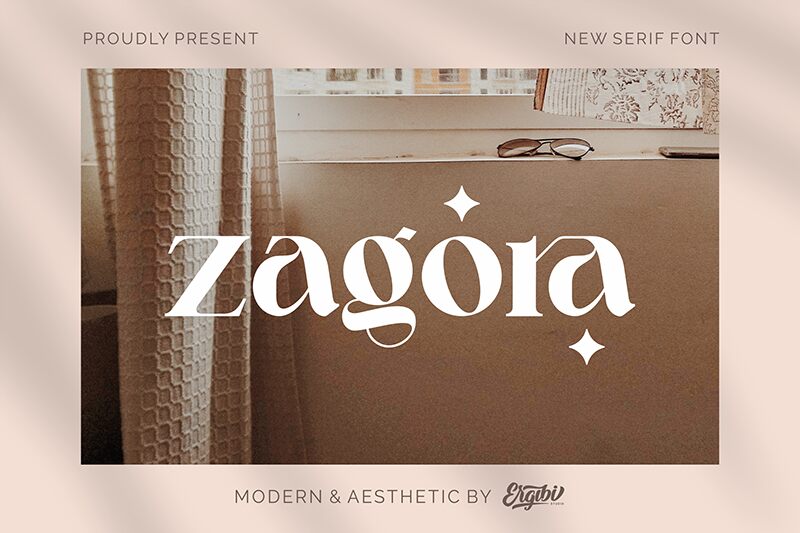
Zagora
Introducing Zagora, the modern serif font designed by Riyadh Rahman. Its bold weight and sleek lines are perfect for projects that require a strong and authoritative presence, such as business presentations or branding materials. But don't let its boldness fool you - Zagora's elegant curves also make it suitable for more creative endeavors, like fashion industry designs or sophisticated invitations. With its unique blend of modernity and classic sophistication, Zagora is a versatile font that will elevate any project to the next level. Try it out today and see the difference for yourself!